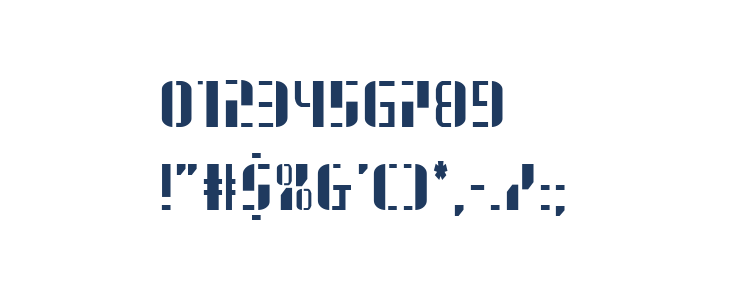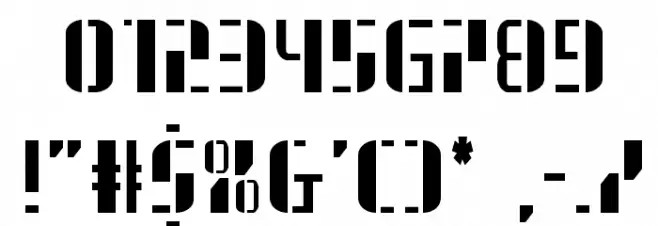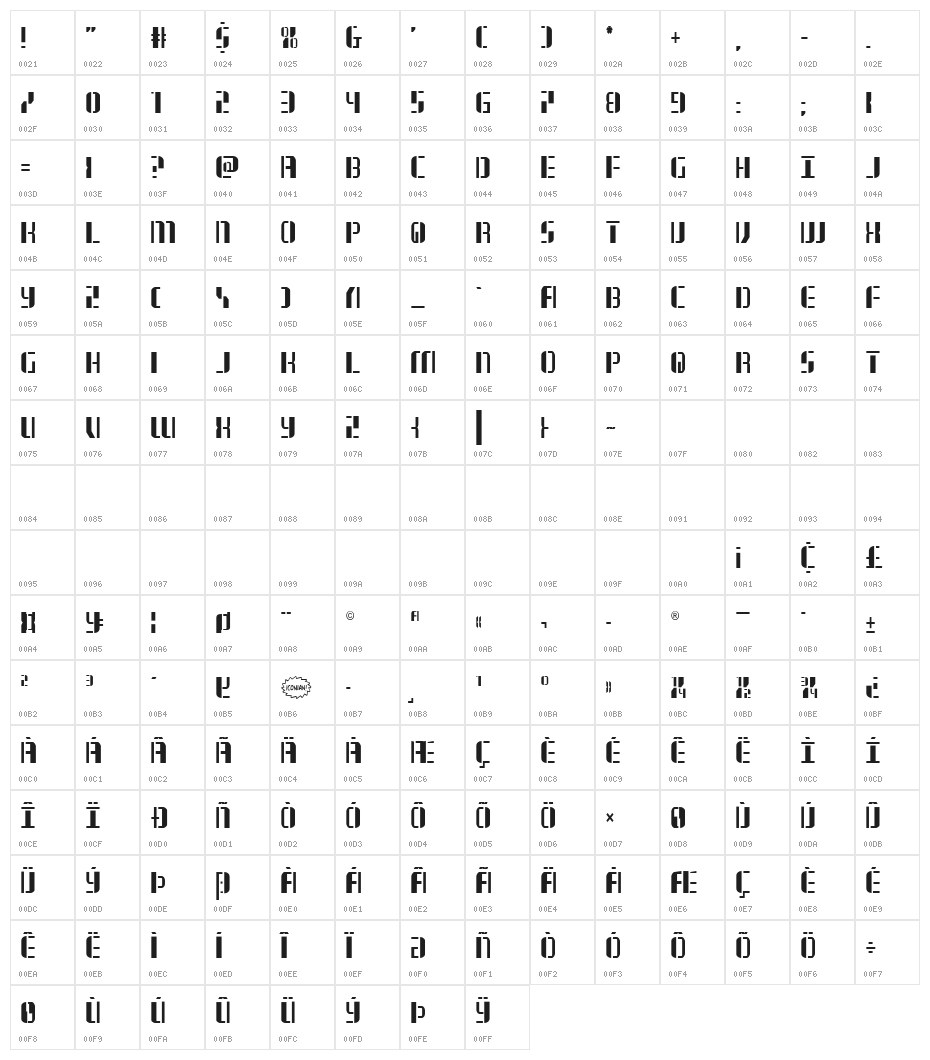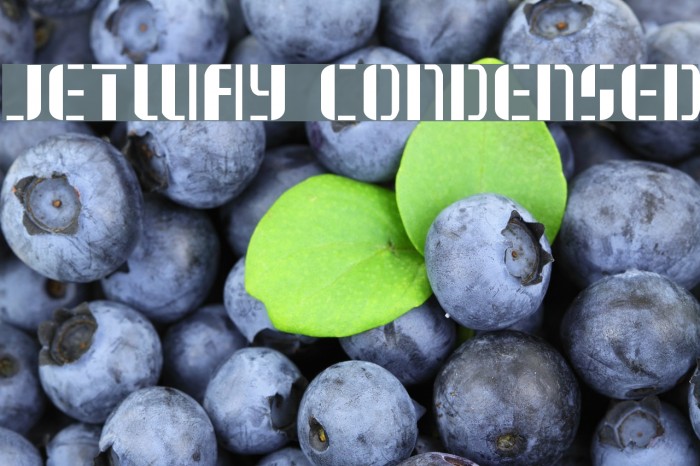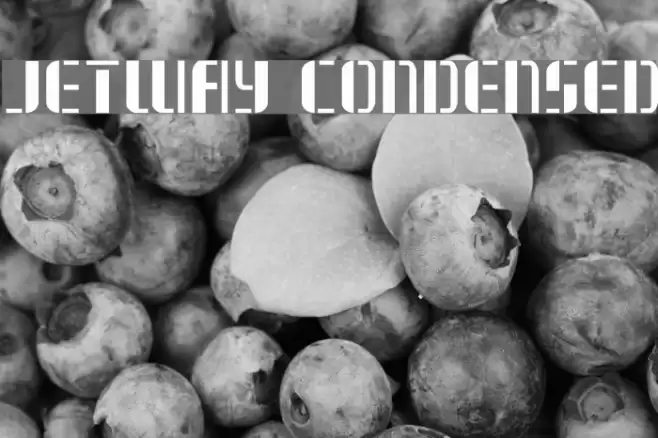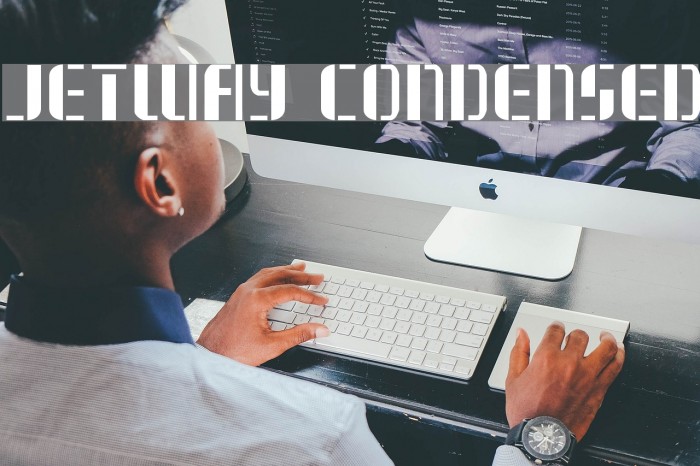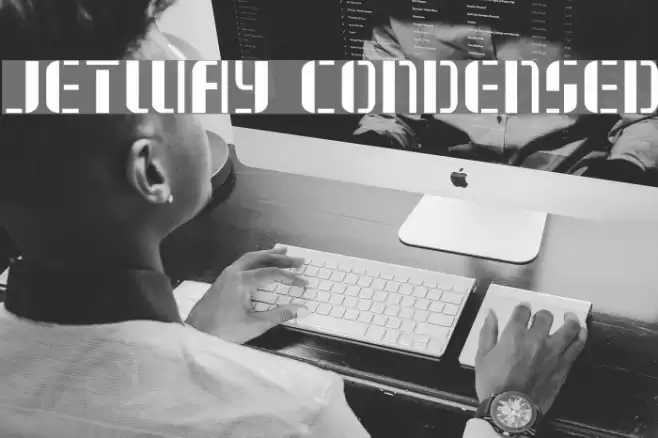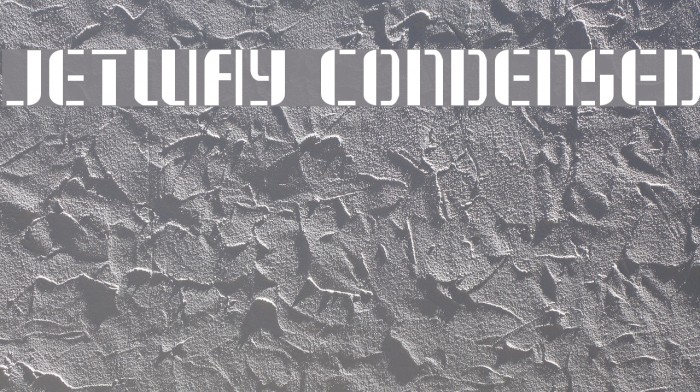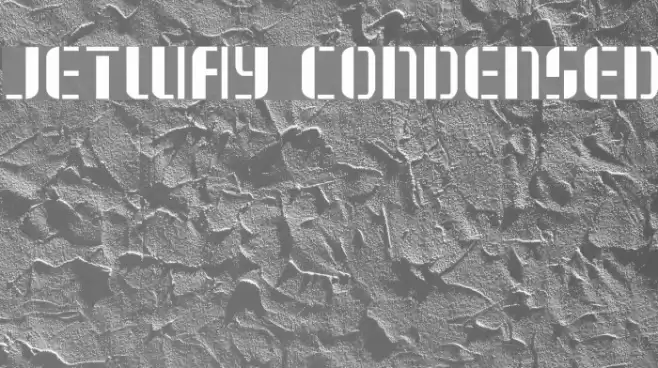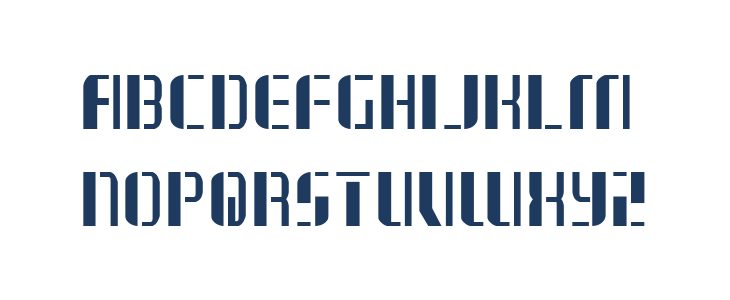
Jetway Condensed Font
Jetway Condensed Description
This font features a bold, geometric design with a stencil-like appearance. The characters are constructed with solid, blocky shapes, creating a sense of strength and modernity. The use of negative space within the letters adds a unique, industrial feel, reminiscent of stenciled lettering used in manufacturing or transportation. The condensed width of the characters allows for efficient use of space, making it suitable for headlines or impactful statements. The font's high contrast between thick and thin strokes enhances its visual impact, ensuring readability even at smaller sizes.